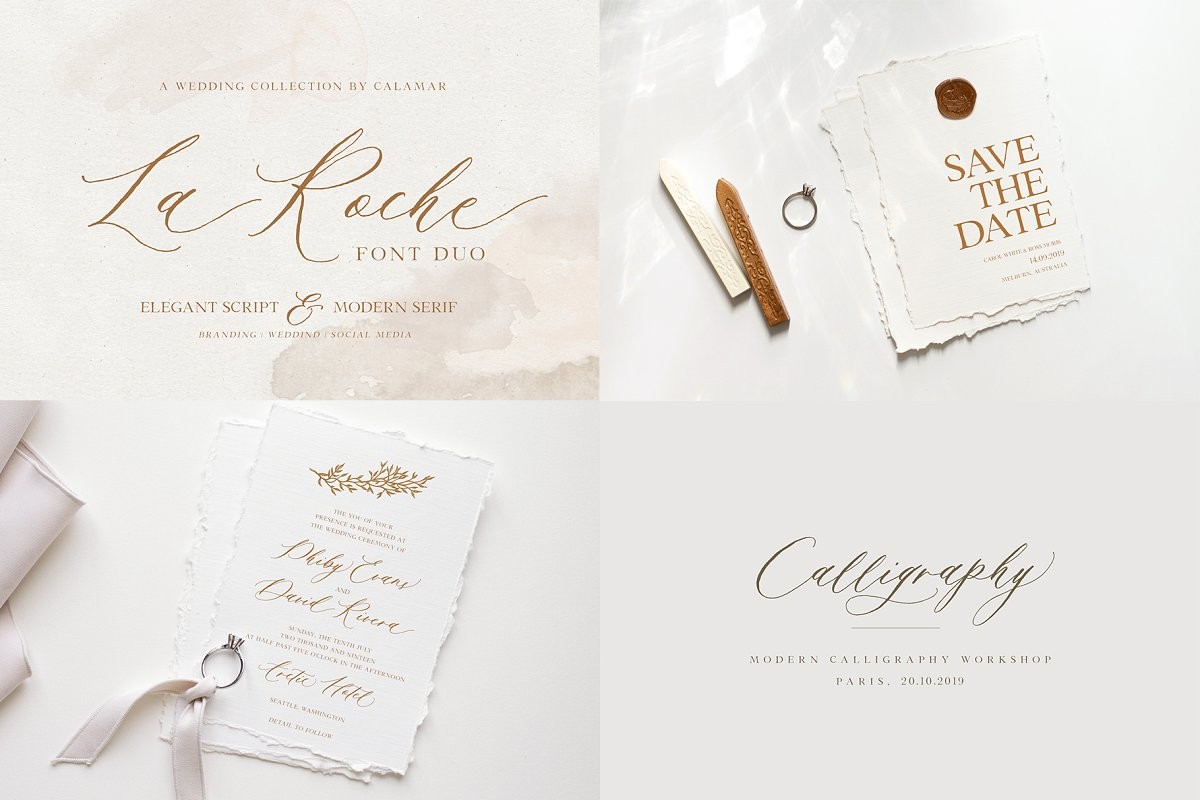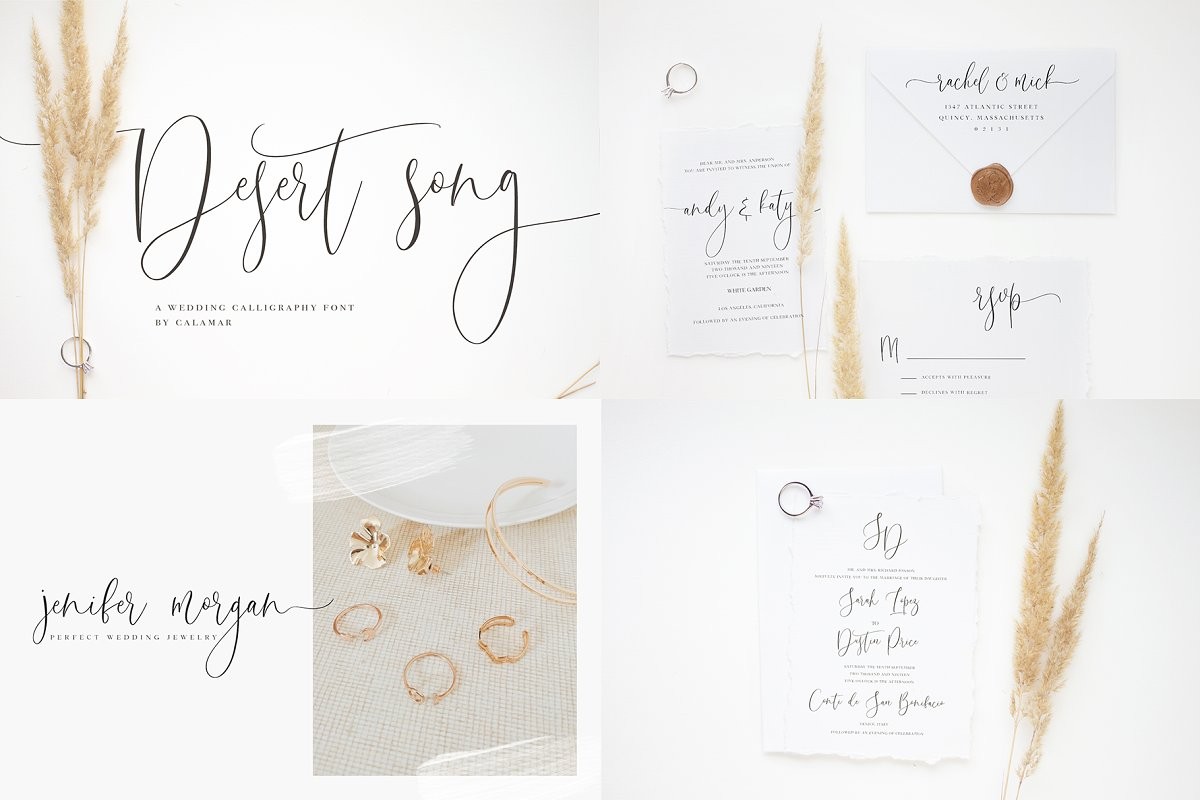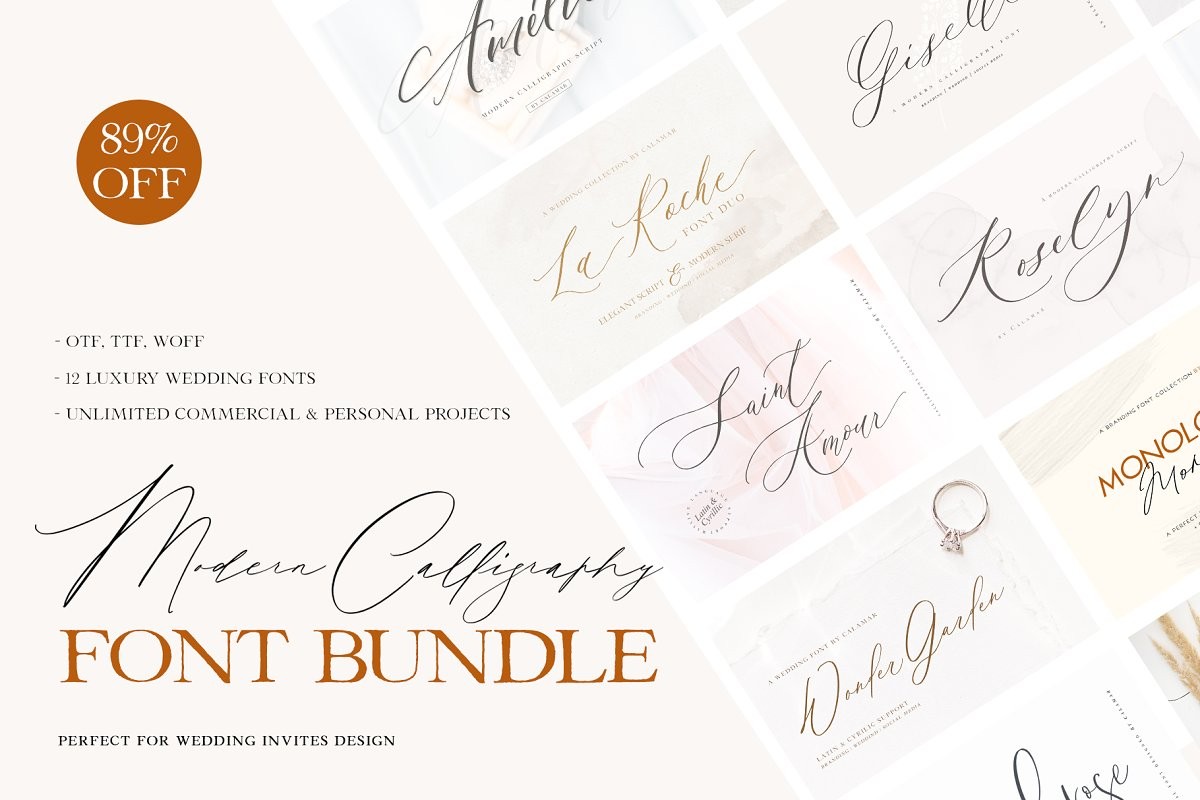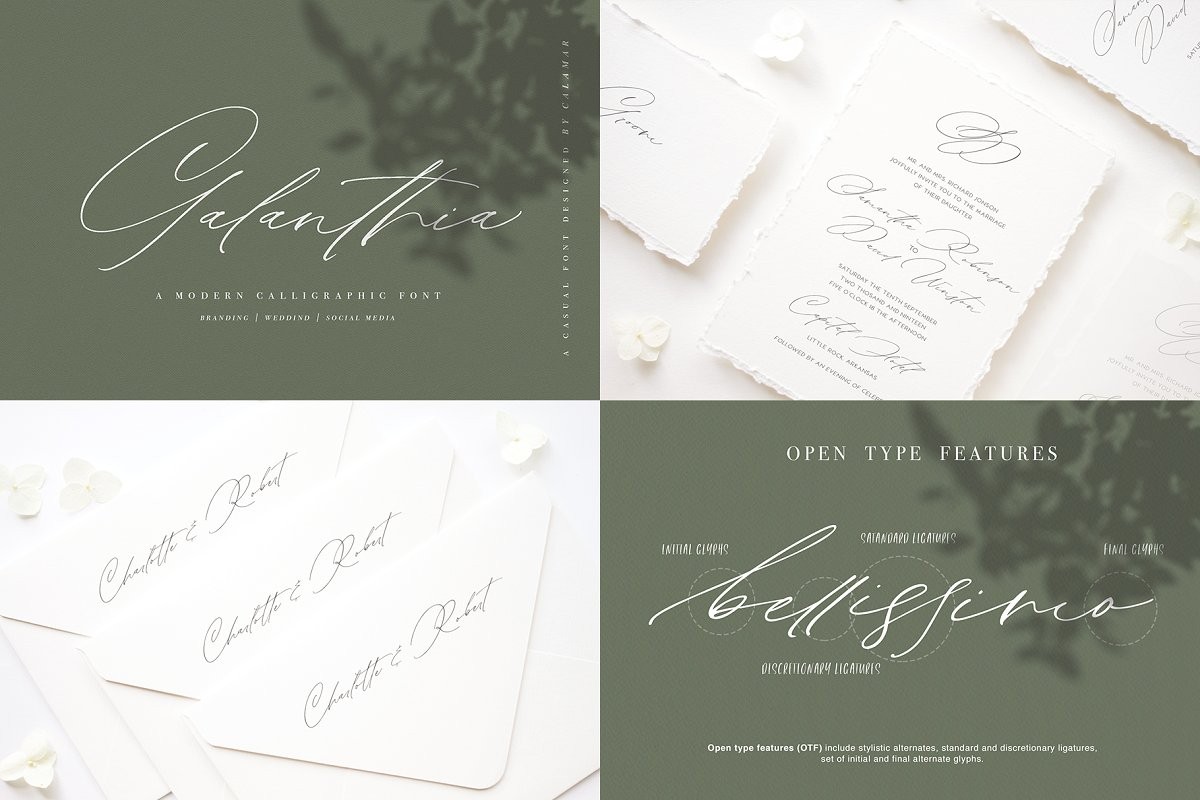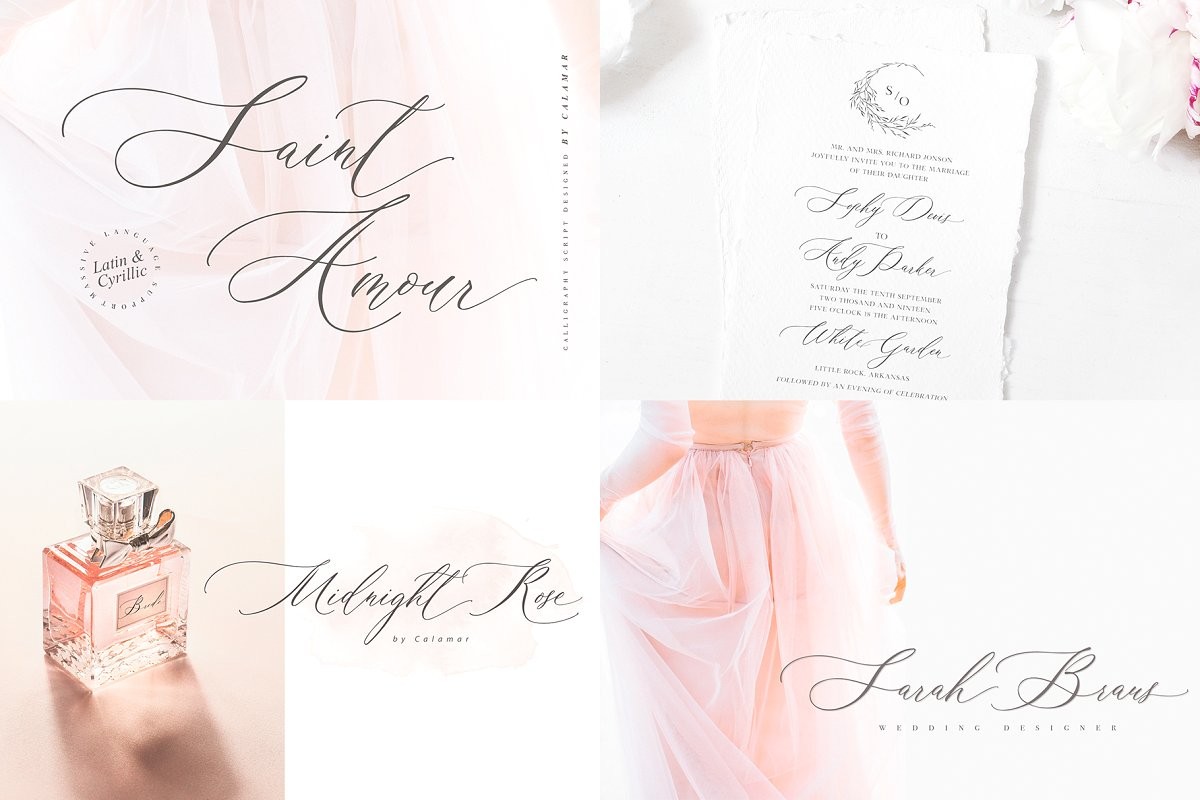
Modern Calligraphy Font Bundle
Are you ready for a new bundle of absolutely gorgeous calligraphy scripts? Well, The Modern Calligraphy Font Bundle is READY!
It's perfect for a wedding invitations, save the date cards, fine art papery, feminine branding or personal gift cards. This awesome bundle will save you 89% off the regular price..